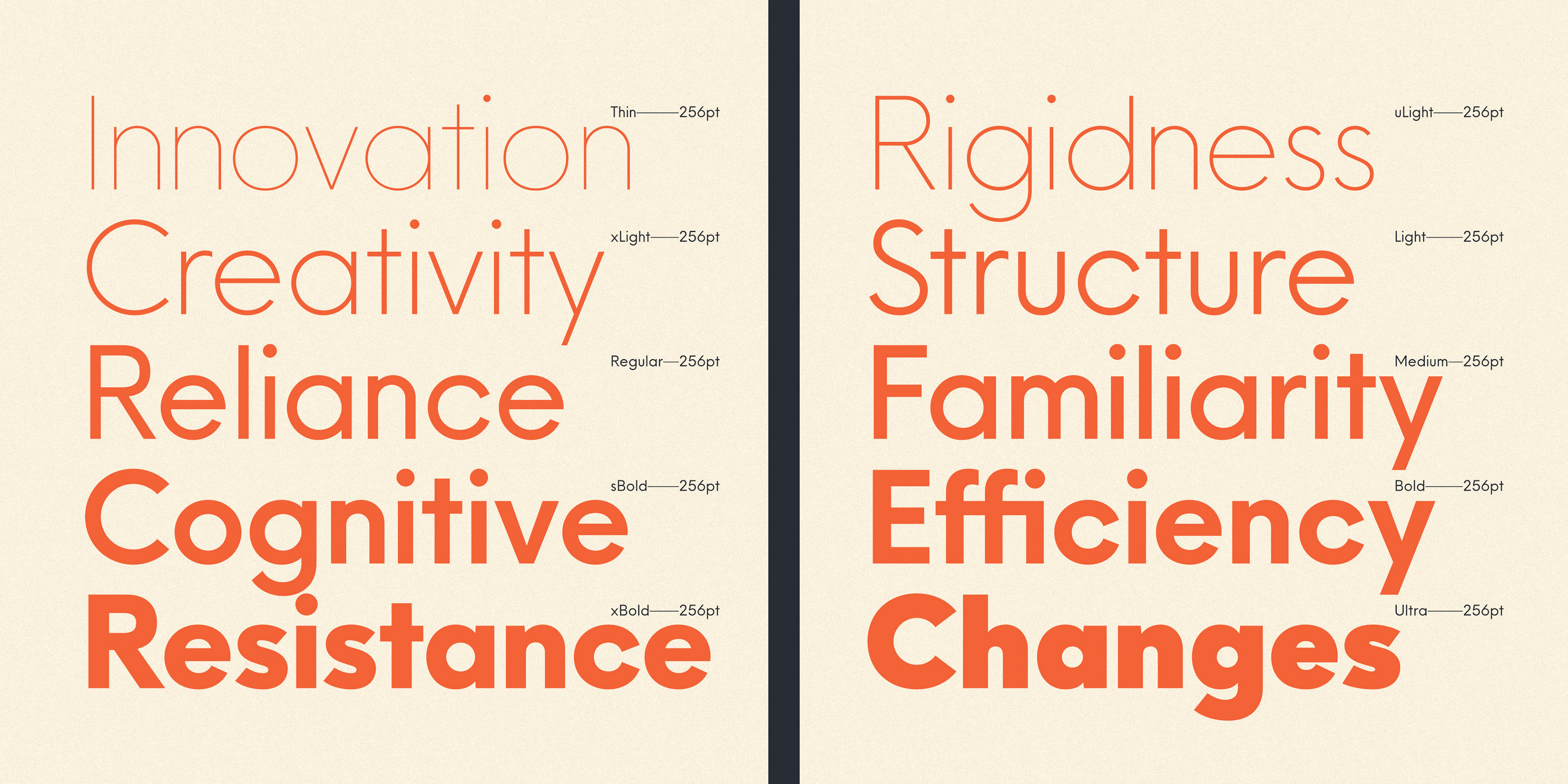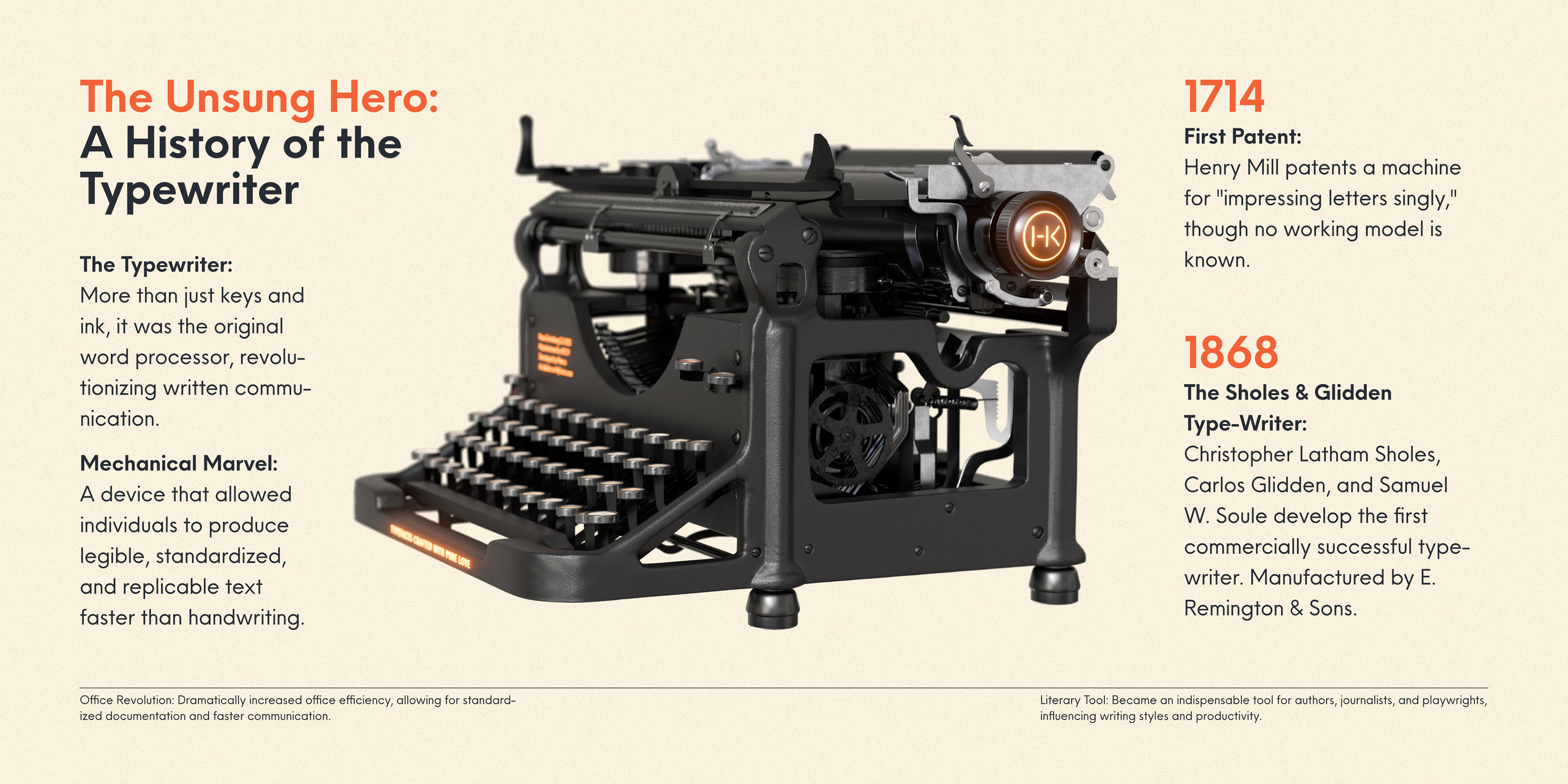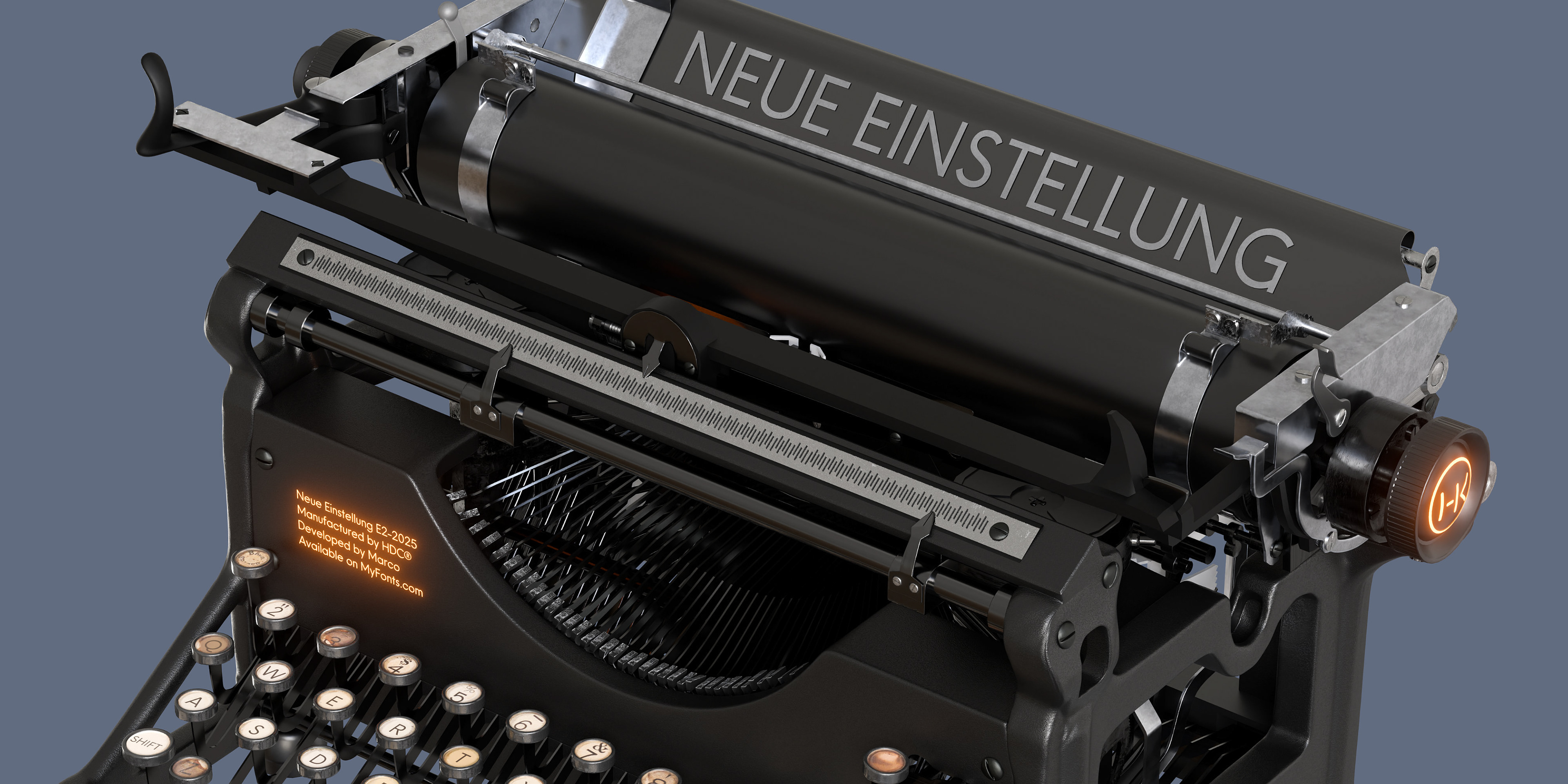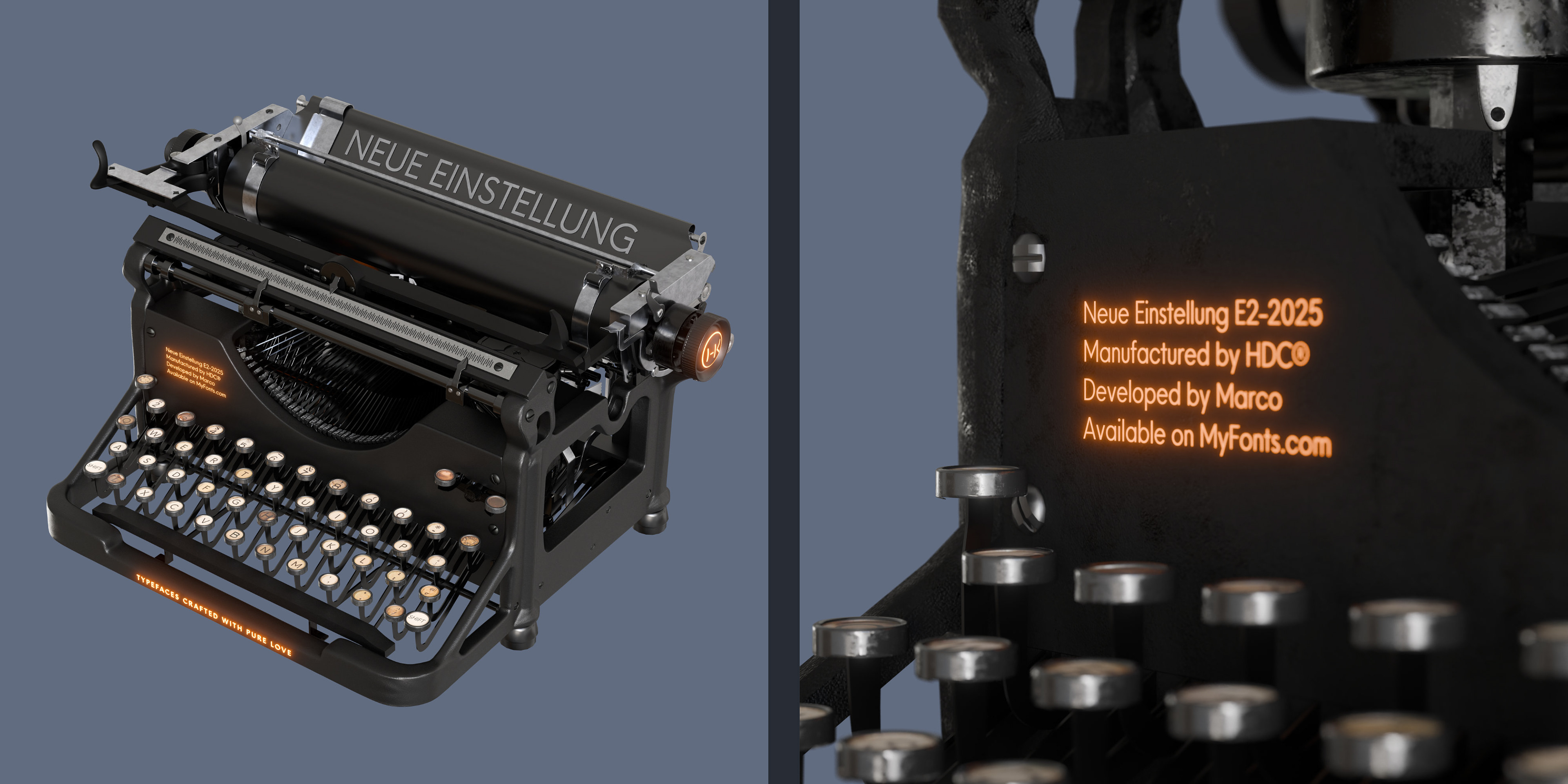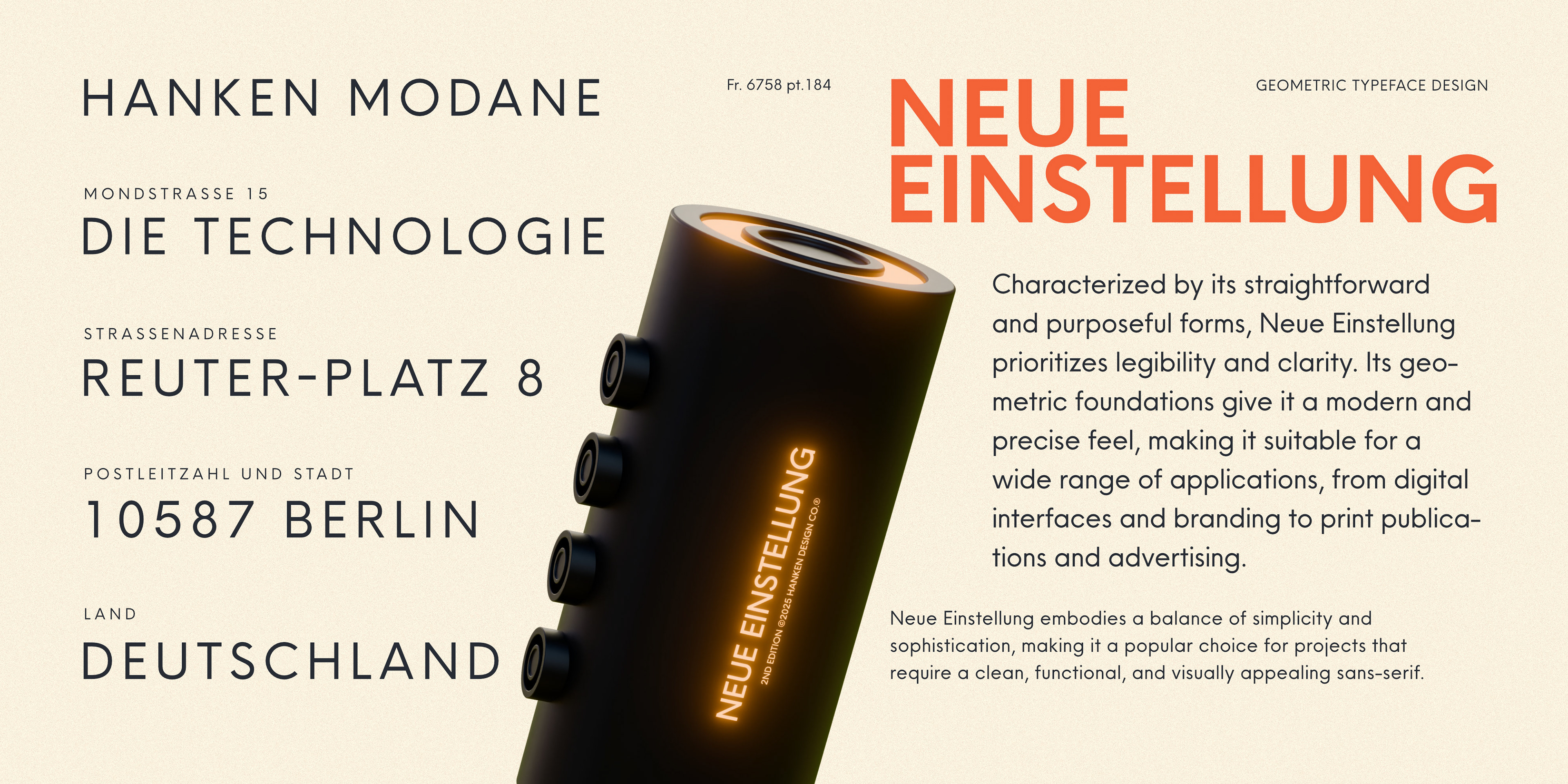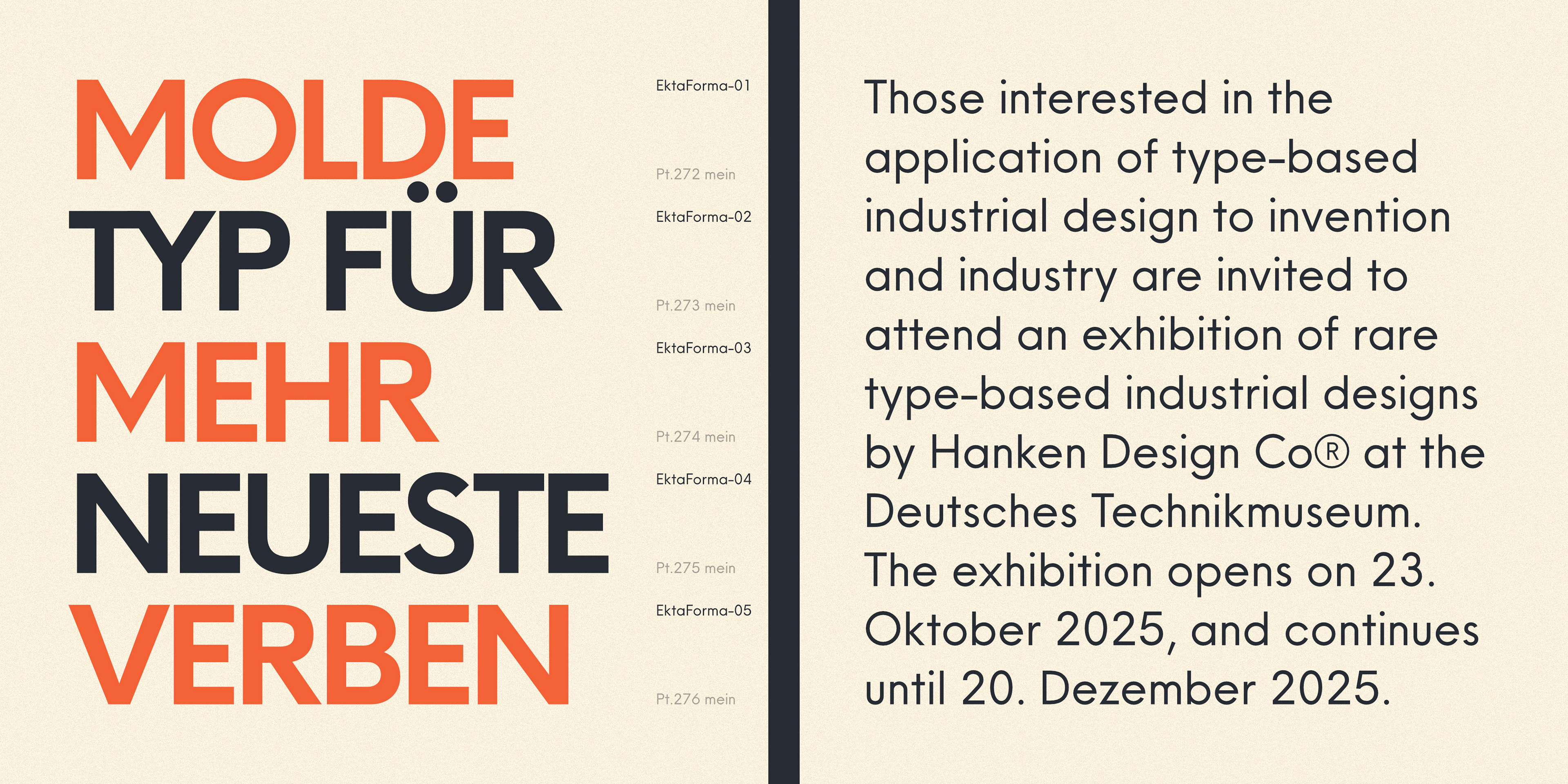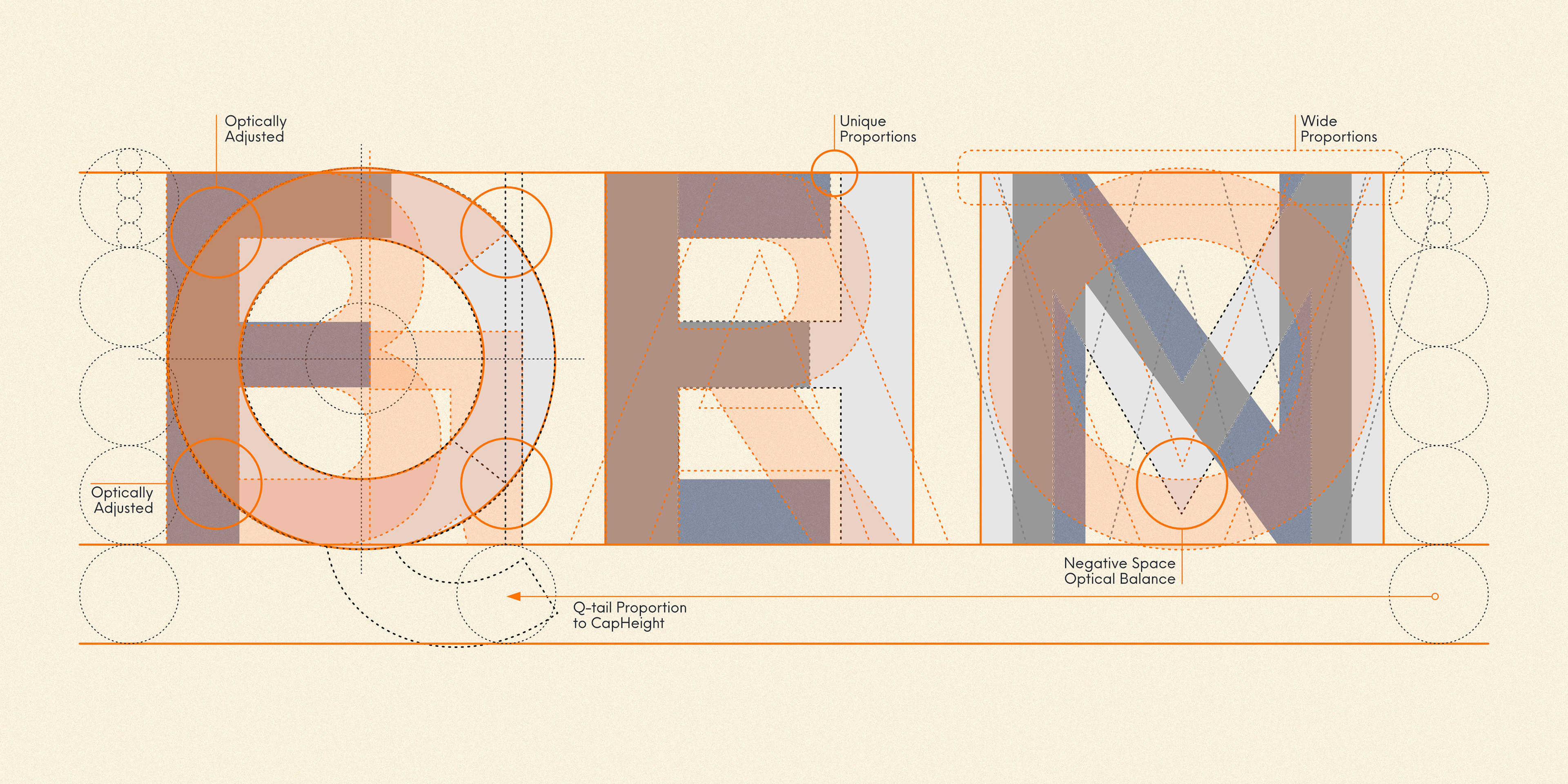
Neue Einstellung is a geometric typeface with simplicity and straightforwardness that stands out in small or large scale applications. Inspired by the Einstellung Effect, it embodies rigidity in the way it looks and the way it performs. It has been used by contemporary brands all over the world due to the clean and minimalistic feel that it promotes.